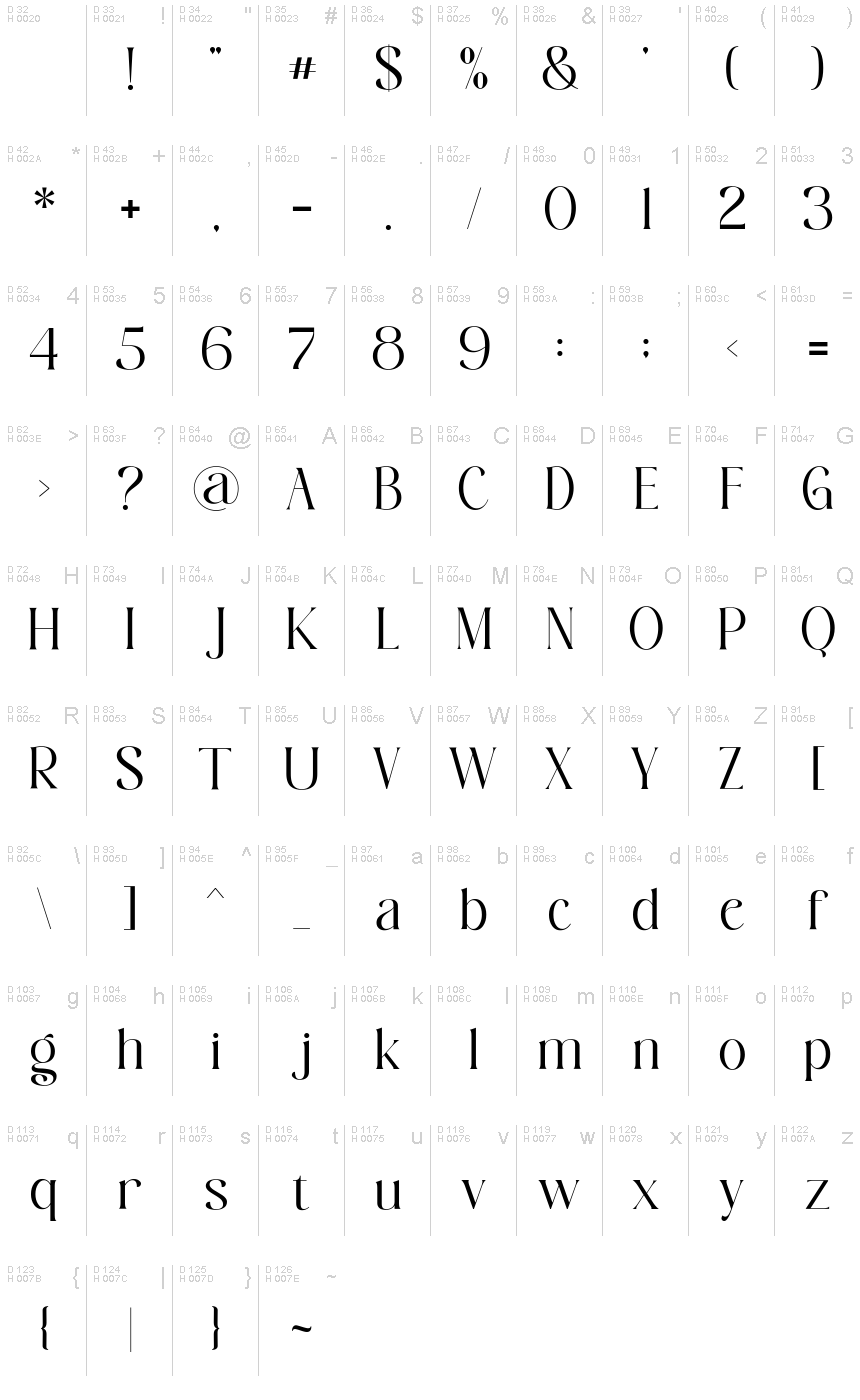
Bowtaris
Bowtaris is a captivating serif font that commands attention with its distinct and elegant style. Crafted by ToniStudio, this typeface exudes a timeless sophistication, blending traditional elegance with a modern flair.
The serifs are well-defined, lending a sense of stability and authority to the letterforms, while the subtle curves and balanced proportions contribute to an overall harmonious aesthetic. Bowtaris' versatility makes it a compelling choice for a wide range of applications, from high-end editorial design to impactful branding and advertising.
Its refined, yet approachable character can elevate text-driven content, lending an air of sophistication and refinement to any project.